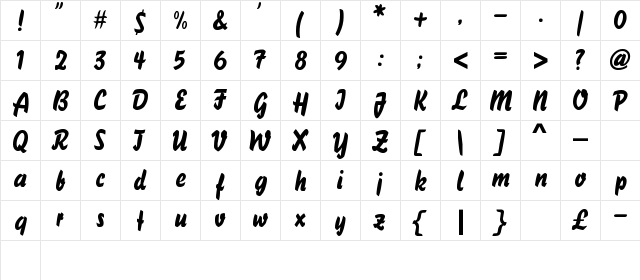
Clasico Regular Font Preview
Clasico Regular
Design Context for Clasico Typeface
Clasico is a composed and adaptable typeface that performs quietly and consistently across a wide range of design contexts.